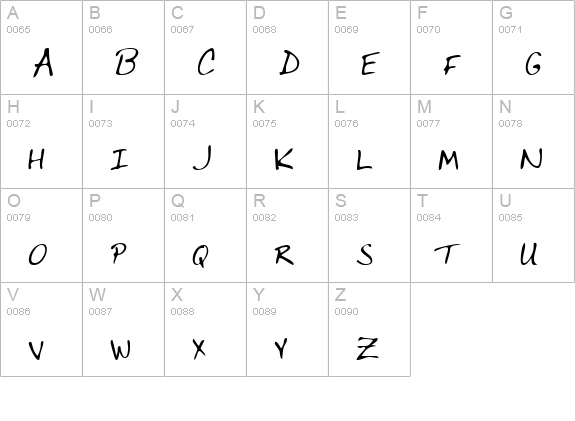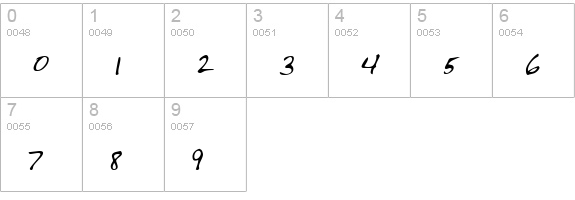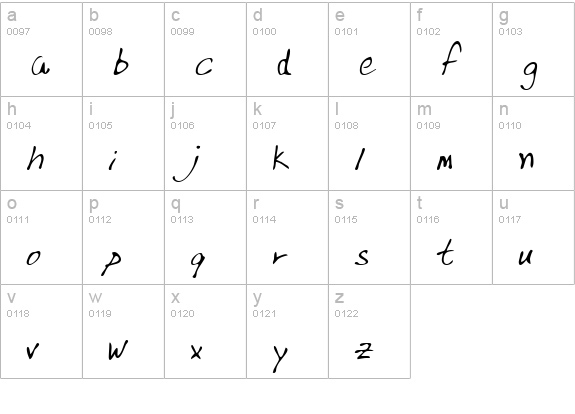
NortonsHand Regular is the standard, neutral variant in the NortonsHand typeface family \xE2\x80\x94 well suited to general body text, paragraphs, and standard typographic work.
NortonsHand Regular font is a delightful and charming typeface that exudes a sense of warmth and friendliness. Its playful yet elegant design makes it perfect for a wide range of creative projects, from invitations to branding materials. The smooth curves and flowing lines of NortonsHand Regular bring a touch of handmade authenticity to any design. And the best part? NortonsHand Regular font is completely free to download at FontsMarket.com. Whether you're a designer looking to add a personal touch to your work or just someone who appreciates beautiful typography, NortonsHand Regular is sure to capture your heart. Download it today and let your creativity soar with this lovely and versatile font.